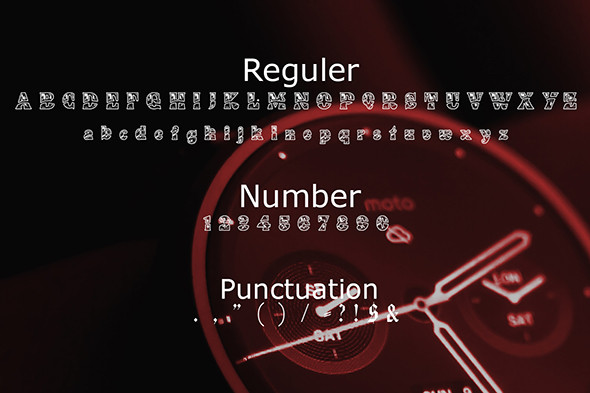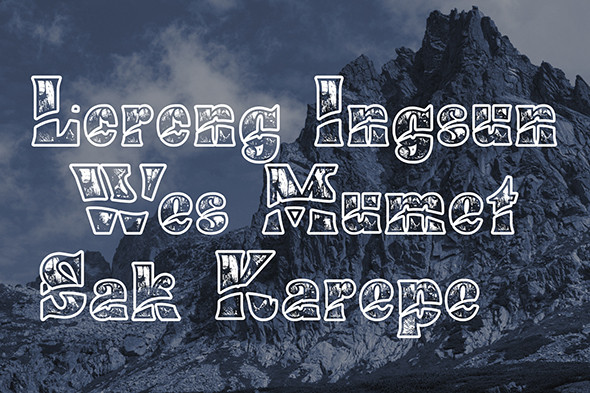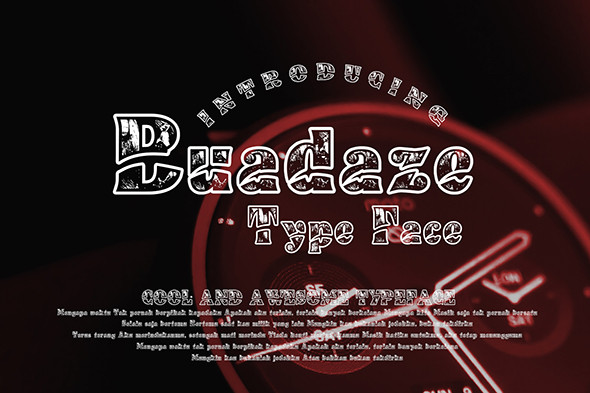
Buadaze Font
Buadaze is a unique and interesting display font. Distinct and a little bit quirky, this font looks incredibly adept on a wide variety of contexts!